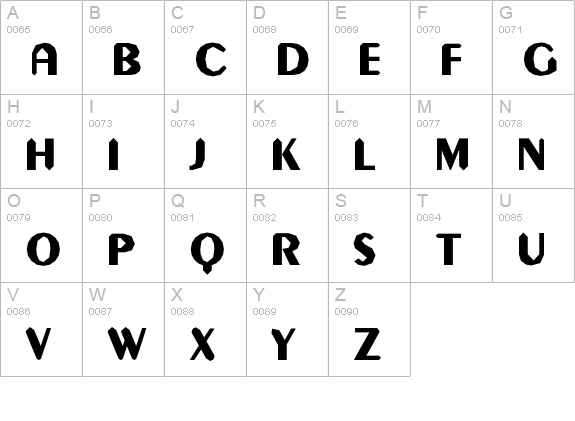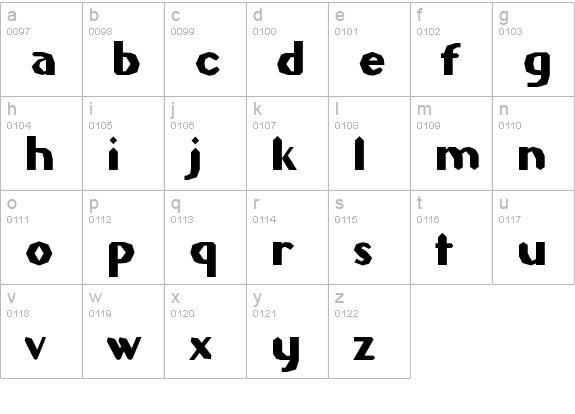
Gilgongo Sledge font is a bold and edgy typeface that exudes strength and power. With its unique and eye-catching design, this font is perfect for making a statement in your projects. The sharp angles and rugged appearance give Gilgongo Sledge font a modern and industrial feel, making it ideal for bold headlines, posters, and branding. What's even better is that Gilgongo Sledge font is available for free download at FontsMarket.com. You can easily add this striking font to your collection without any cost, making it a valuable resource for your design projects. Don't miss out on the opportunity to enhance your designs with the impactful Gilgongo Sledge font – download it now and let your creativity shine!